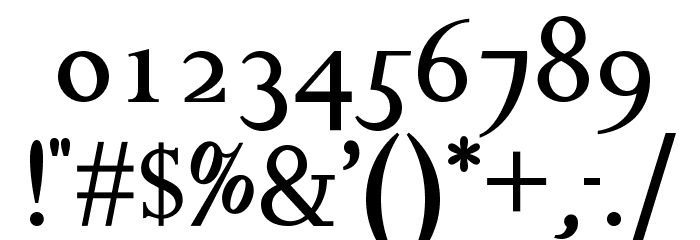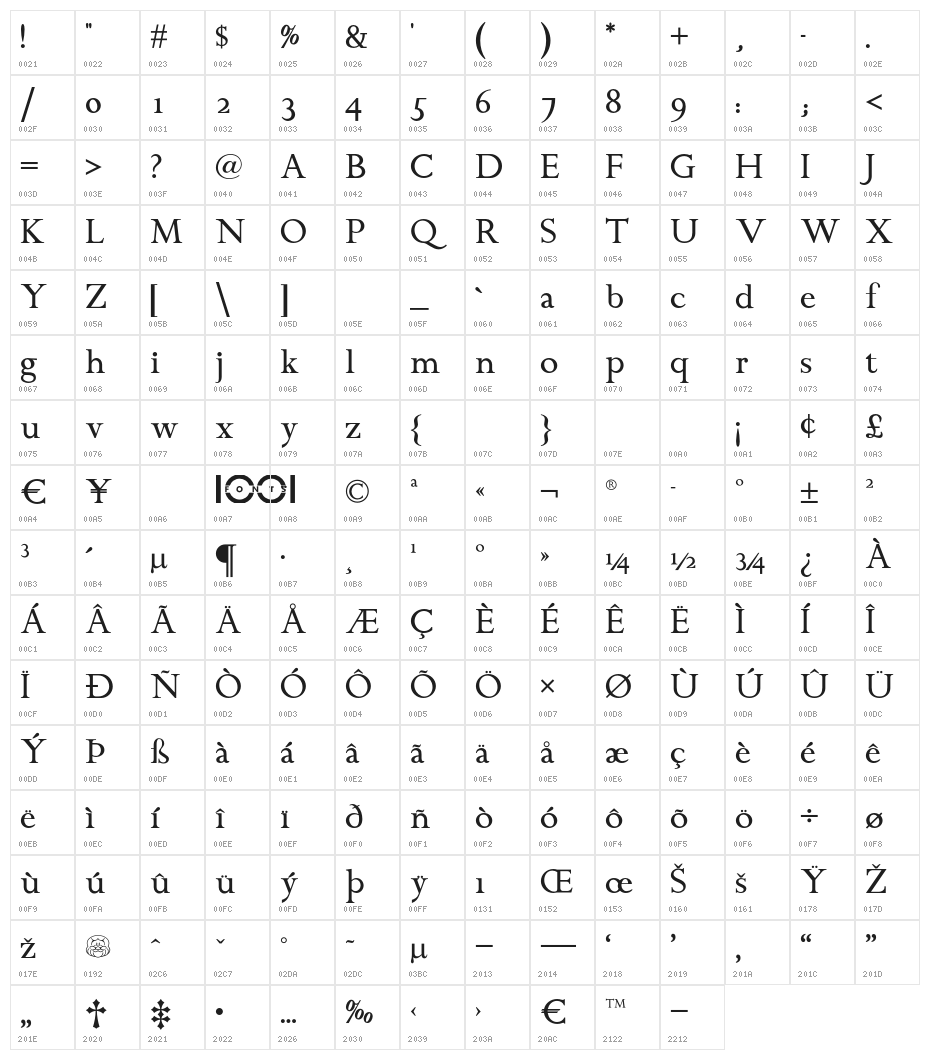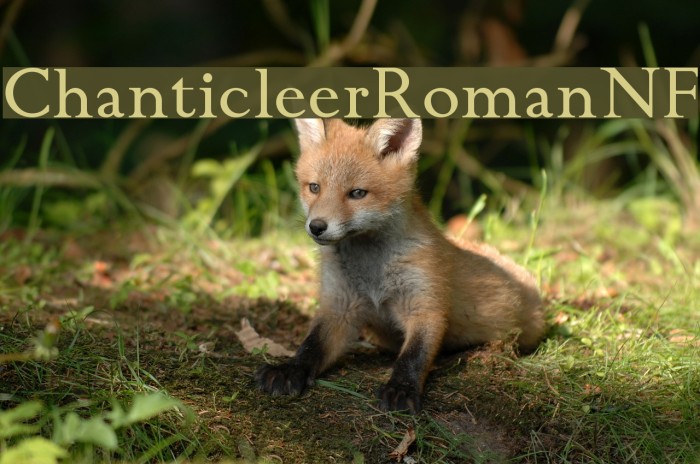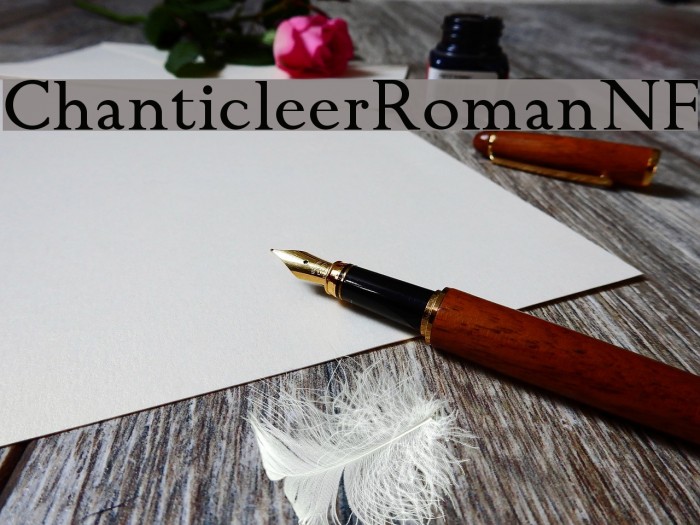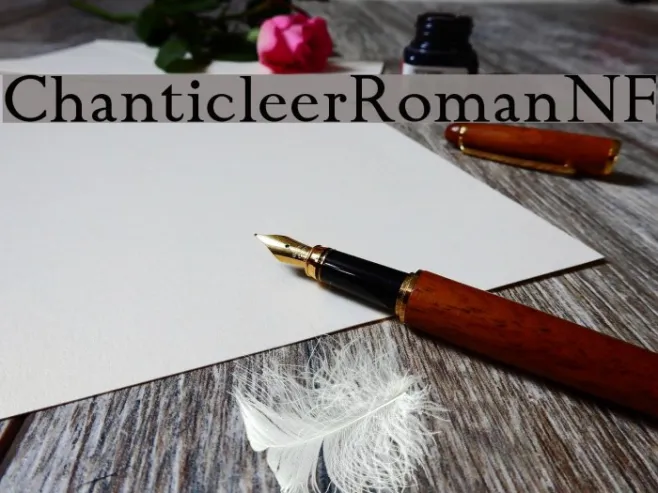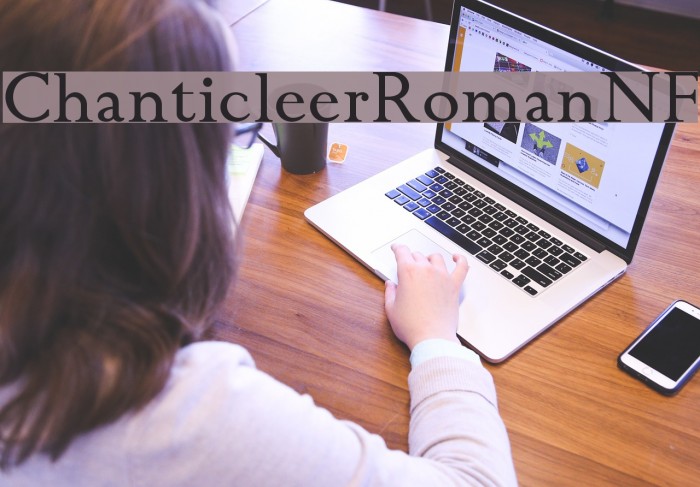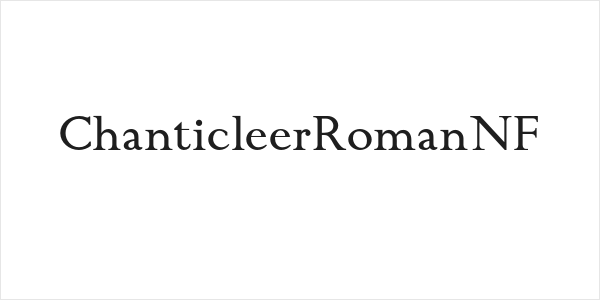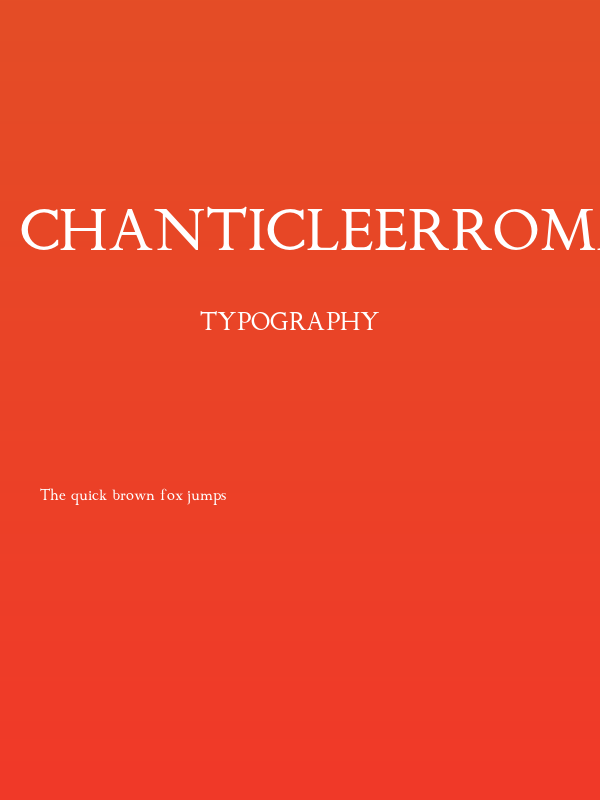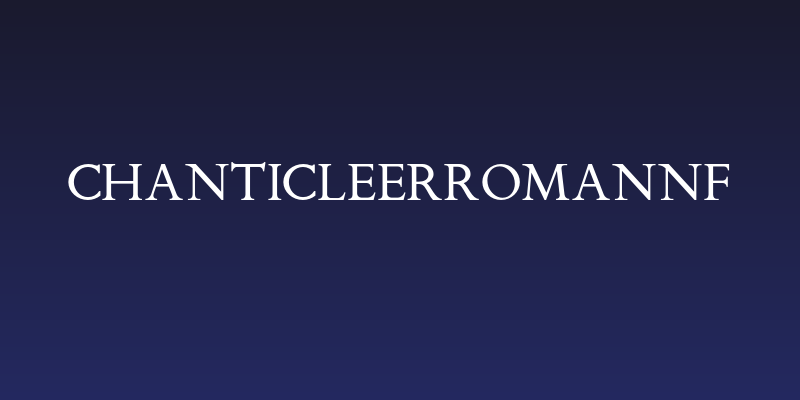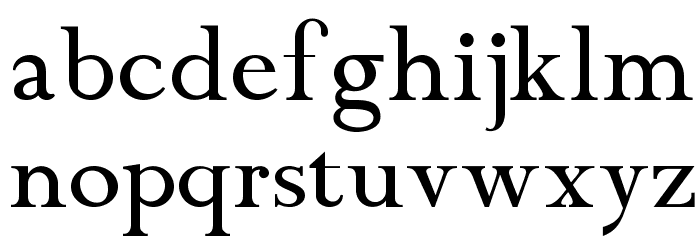
ChanticleerRomanNF Font
ChanticleerRomanNF Description
This font exhibits a classic serif style with elegant, traditional features. The characters are well-defined with a moderate contrast between thick and thin strokes, giving it a refined and sophisticated appearance. The uppercase letters are stately and balanced, while the lowercase letters maintain a consistent flow, enhancing readability. The numerals are clear and distinct, complementing the overall style. Special characters are designed with the same attention to detail, ensuring versatility across various applications. This font is suitable for projects that require a touch of elegance and timelessness.